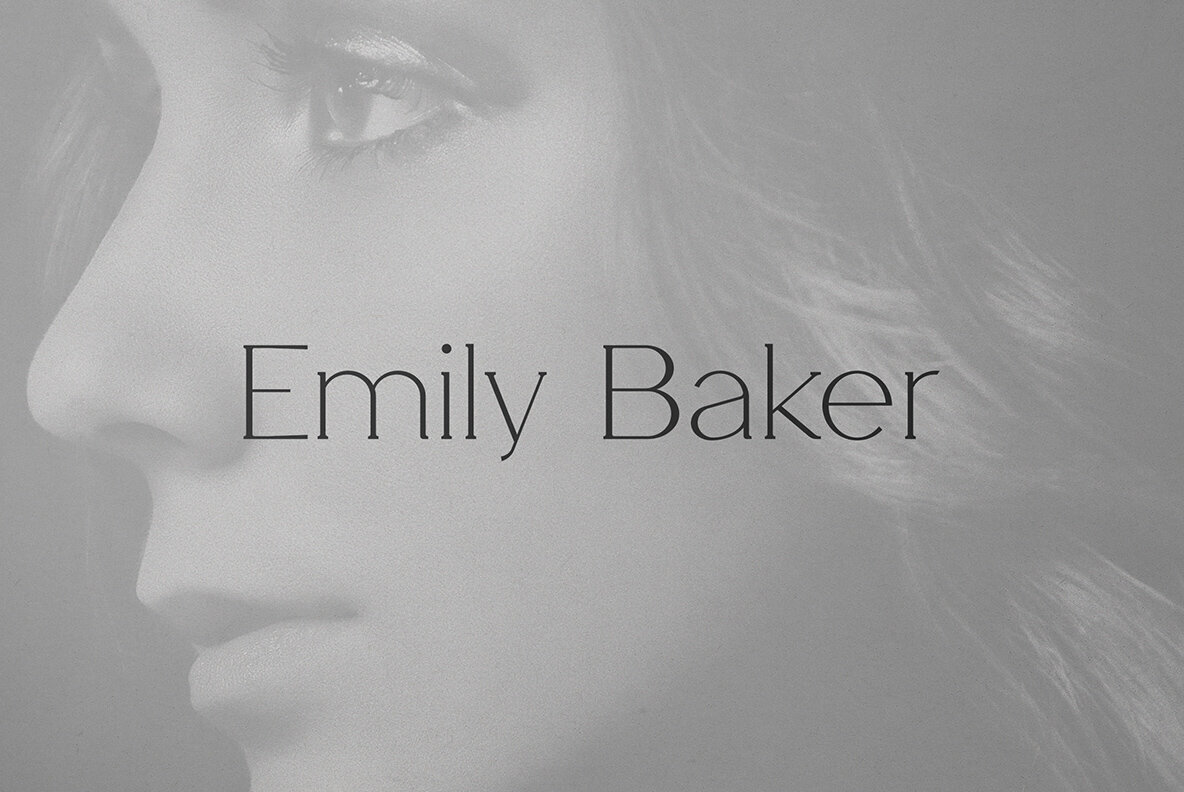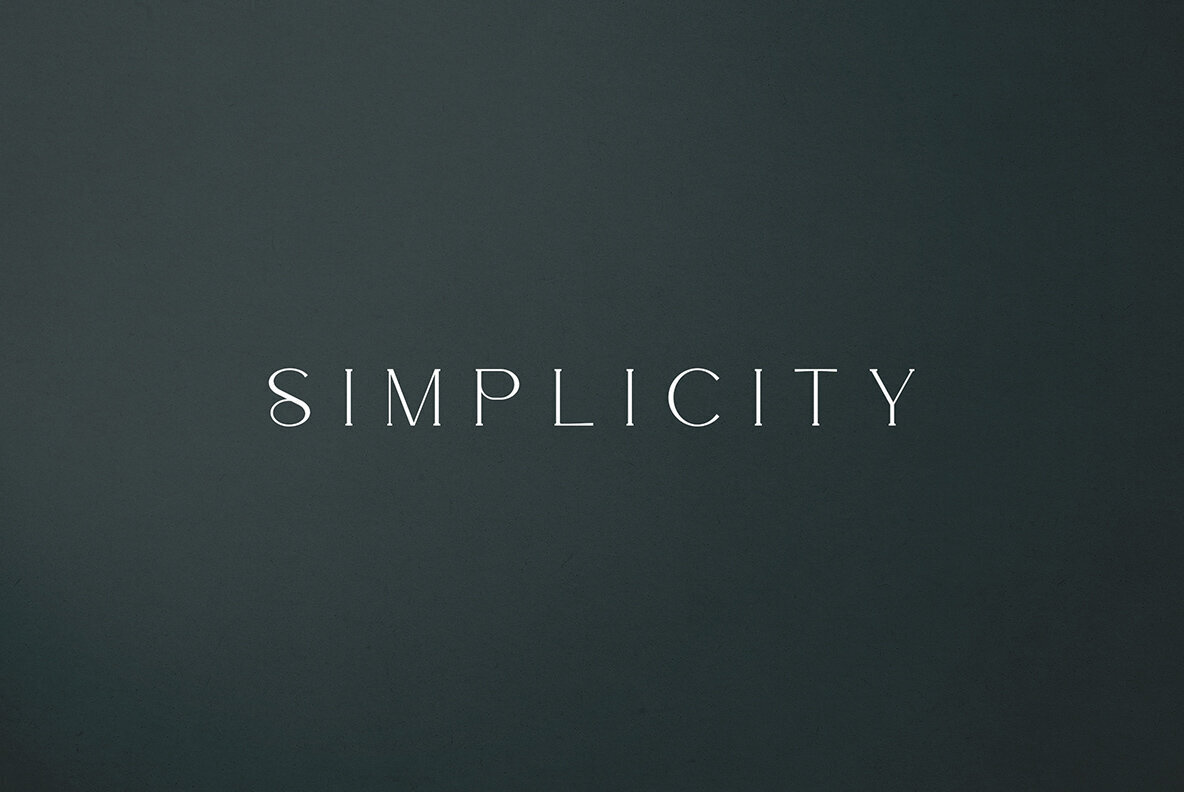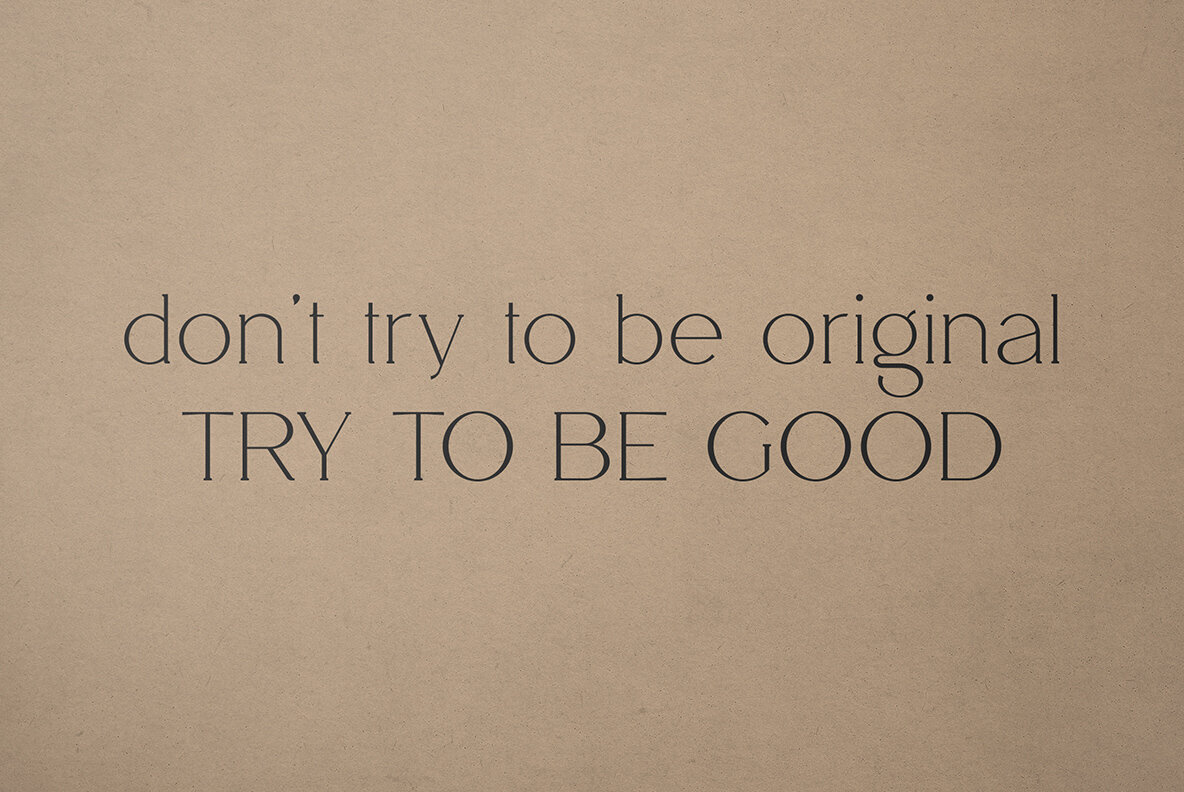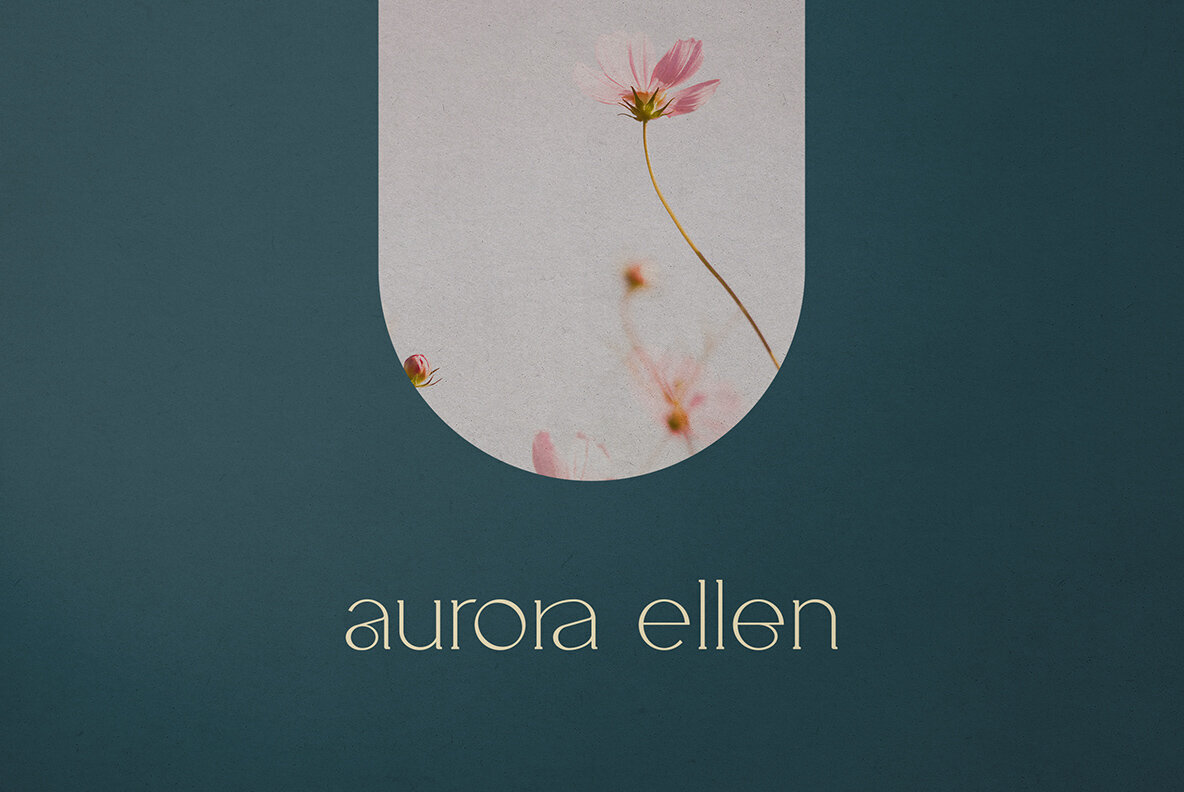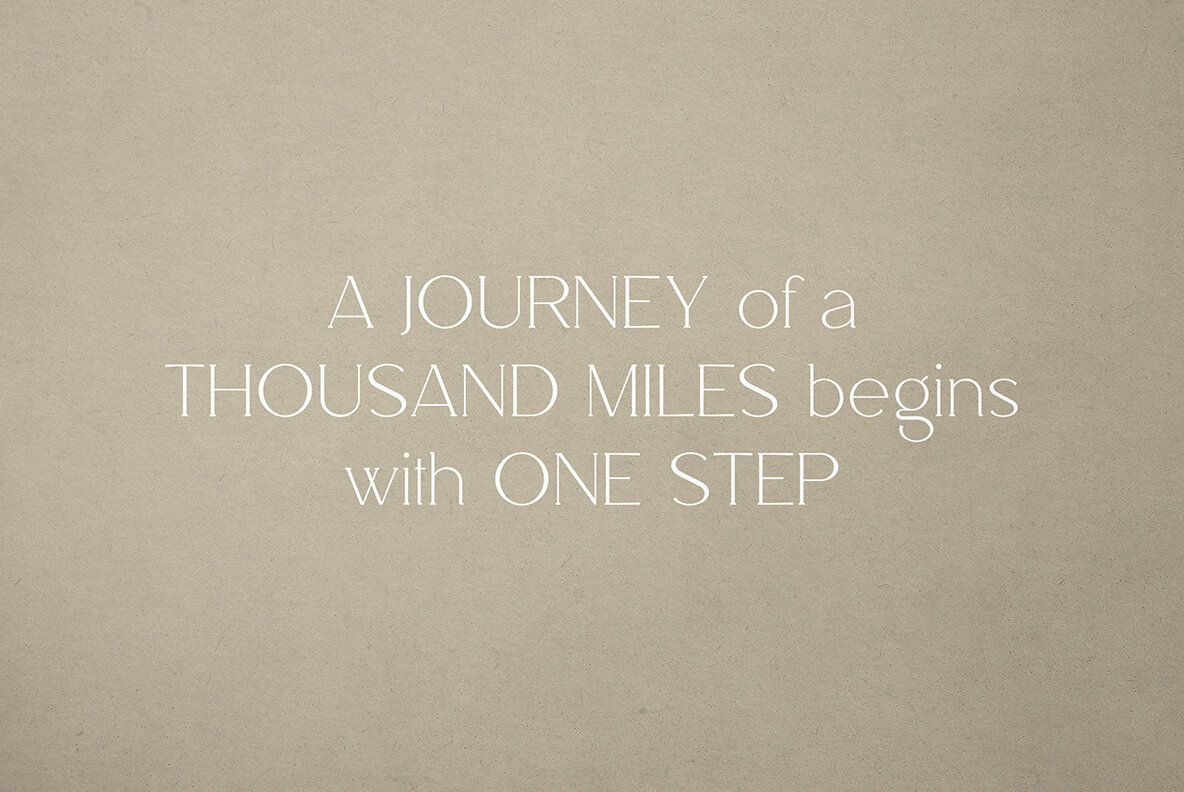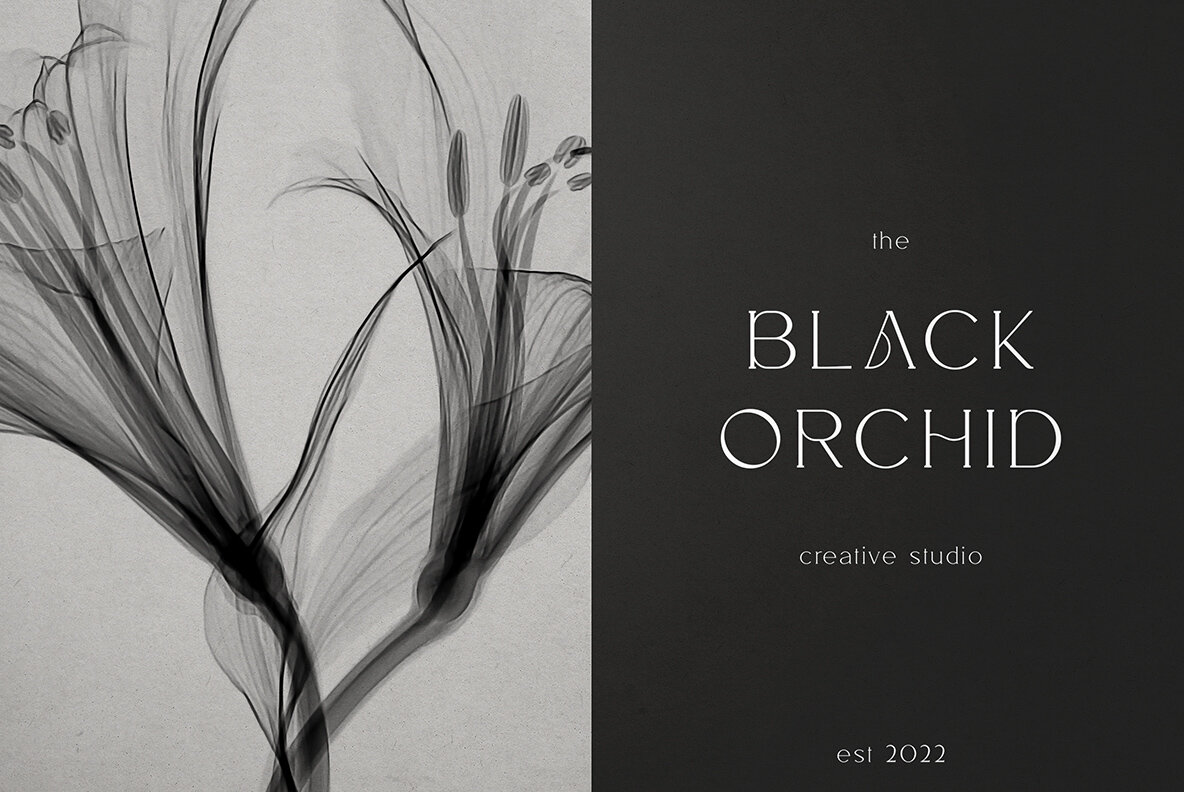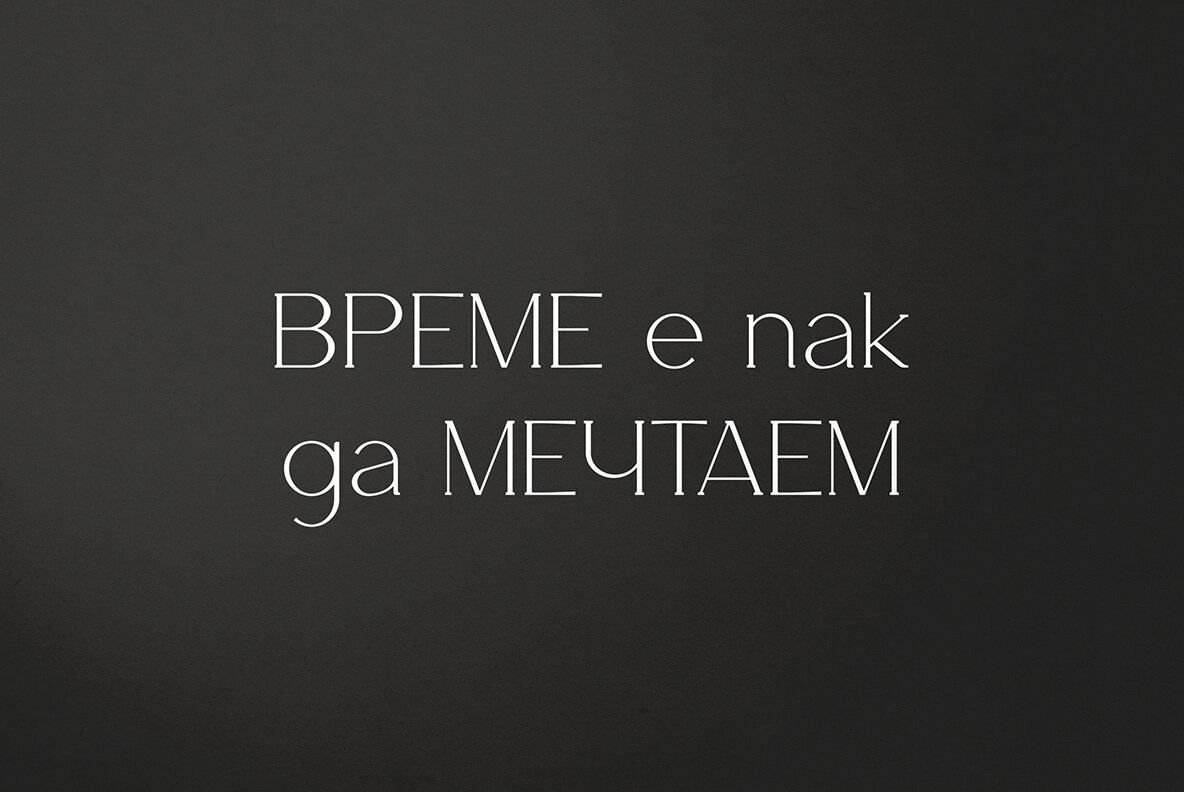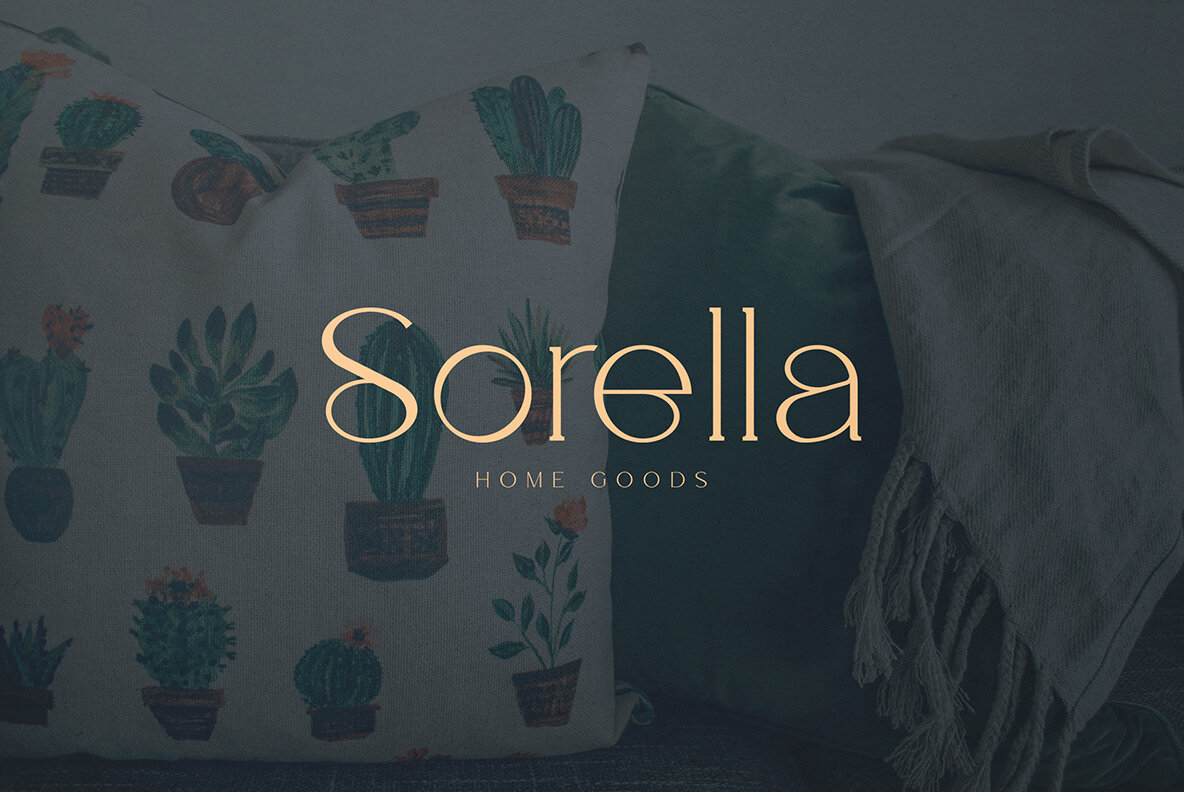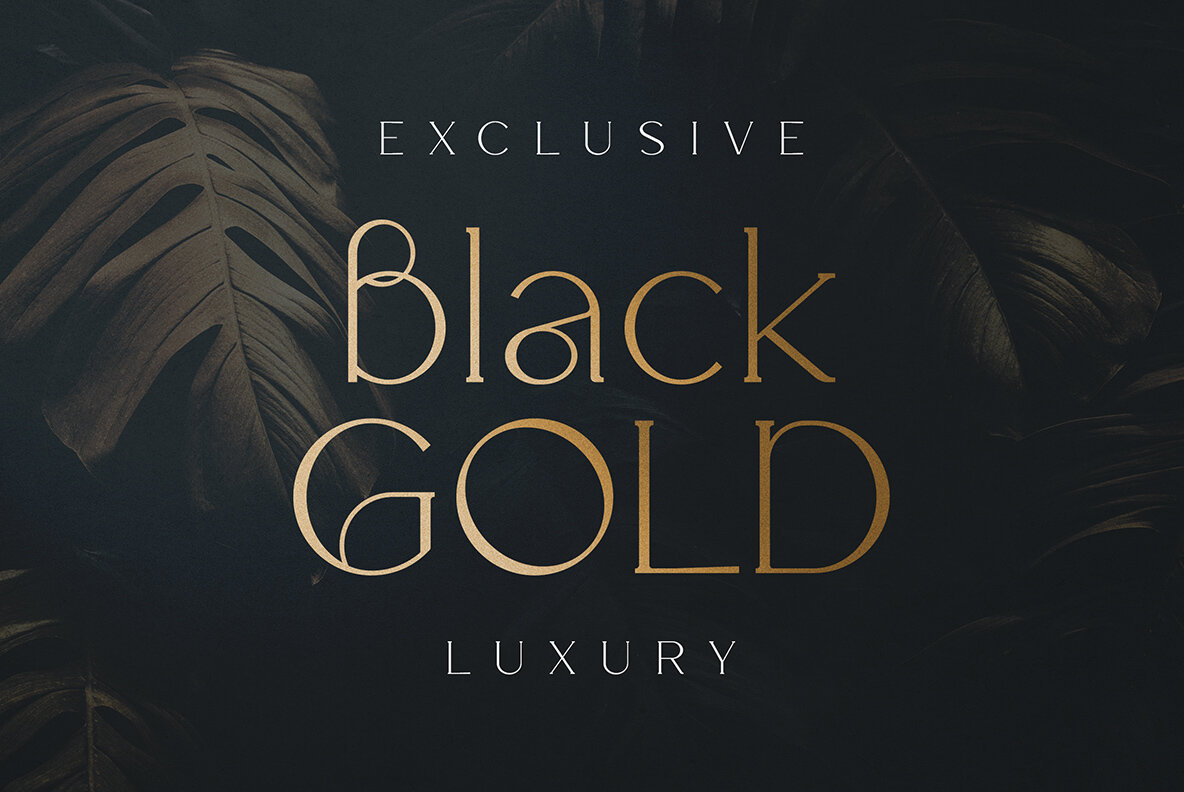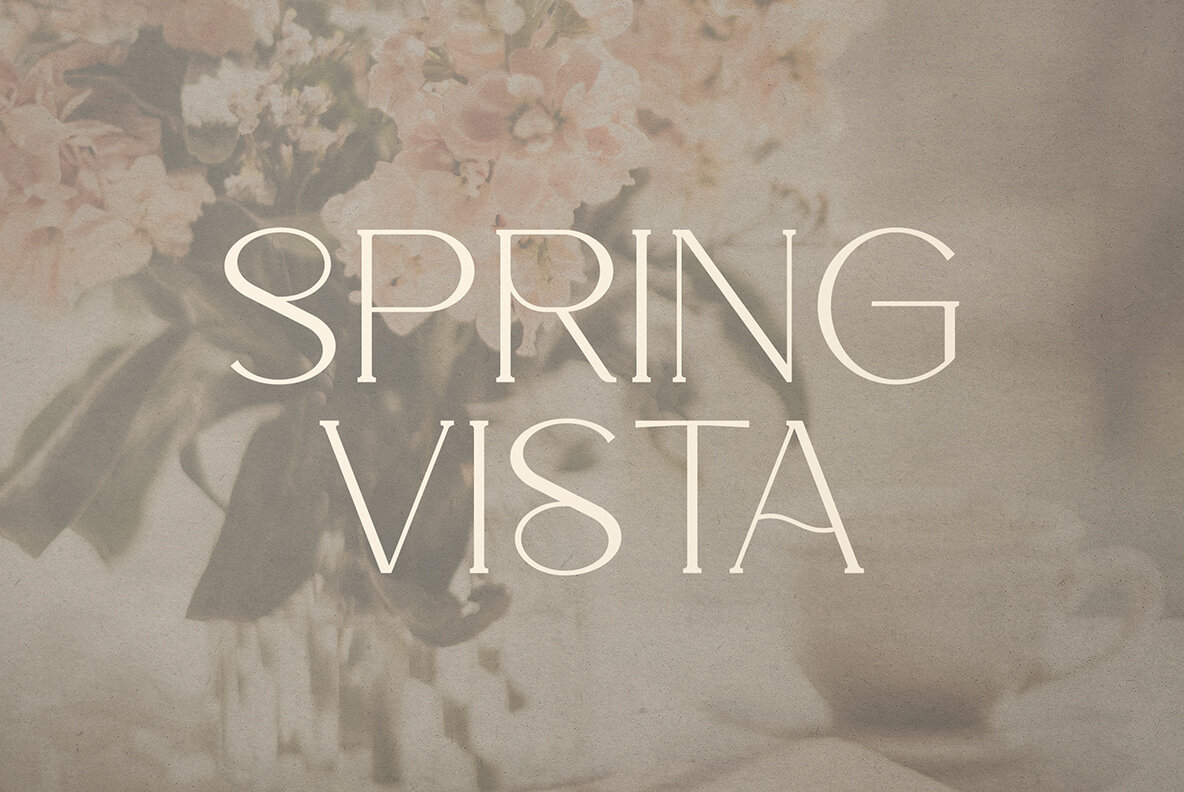
Salve Font
Salve
The Salve is an elegant and wide serif font designed to bring sophistication to your typography. Supporting both Latin and Cyrillic scripts, this typeface offers versatility for creative designs across 95 languages, ensuring your message resonates globally. Features: From Scandinavian tongues to Eastern European languages, Salve’s expansive support includes languages such as Belarusian, Macedonian, Russian, and many more. This range ensures that your designs maintain their elegance no matter where they are used.Salve: Elegant Serif Font with Extensive Language Support
Language Diversity
Whether you're crafting a brand identity or designing editorial layout, Salve provides the typographic grace needed to capture an audience's attention with its exquisite character set and wide-ranging language capabilities.